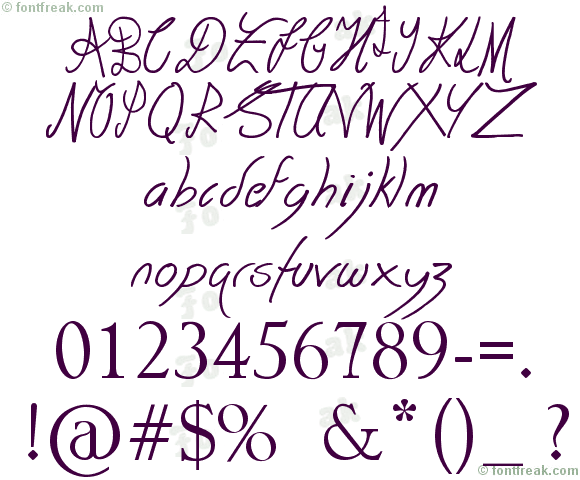
Together Again
The Together Again font, designed by Jonathan S. Harris, is a captivating handwritten style that exudes warmth and personality. This script font features a fluid, organic flow that mimics natural handwriting, making it a perfect choice for projects seeking a personal touch. The strokes vary subtly in weight, lending a dynamic quality that enhances its visual appeal. The careful spacing between characters ensures readability while maintaining an intimate, connected feel that invites closer inspection.
This versatile font is ideal for a variety of creative applications. It shines in wedding invitations, where its elegant curves can beautifully convey love and celebration. Additionally, Together Again is well-suited for branding and logo design, helping small businesses create a memorable and approachable identity. Content creators will find it useful for social media graphics, as its charming style grabs attention and engages audiences. Furthermore, it can elevate restaurant menus, providing a friendly yet sophisticated flair that enhances the dining experience.
The target audience for Together Again includes graphic designers, small business owners, and content creators who appreciate the nuances of typography and seek to convey a message of warmth and authenticity in their work. The font's unique aesthetic makes it a valuable asset for anyone looking to stand out in their field.
What sets the Together Again font apart is its ability to combine elegance with a casual feel; it doesn't just communicate words but also emotions. This handwritten typeface captures the essence of connection and togetherness, making it a standout choice for various design projects. For those interested in incorporating this delightful style into their work, a Together Again font free download is available, allowing for easy access and immediate use in your creative endeavors.